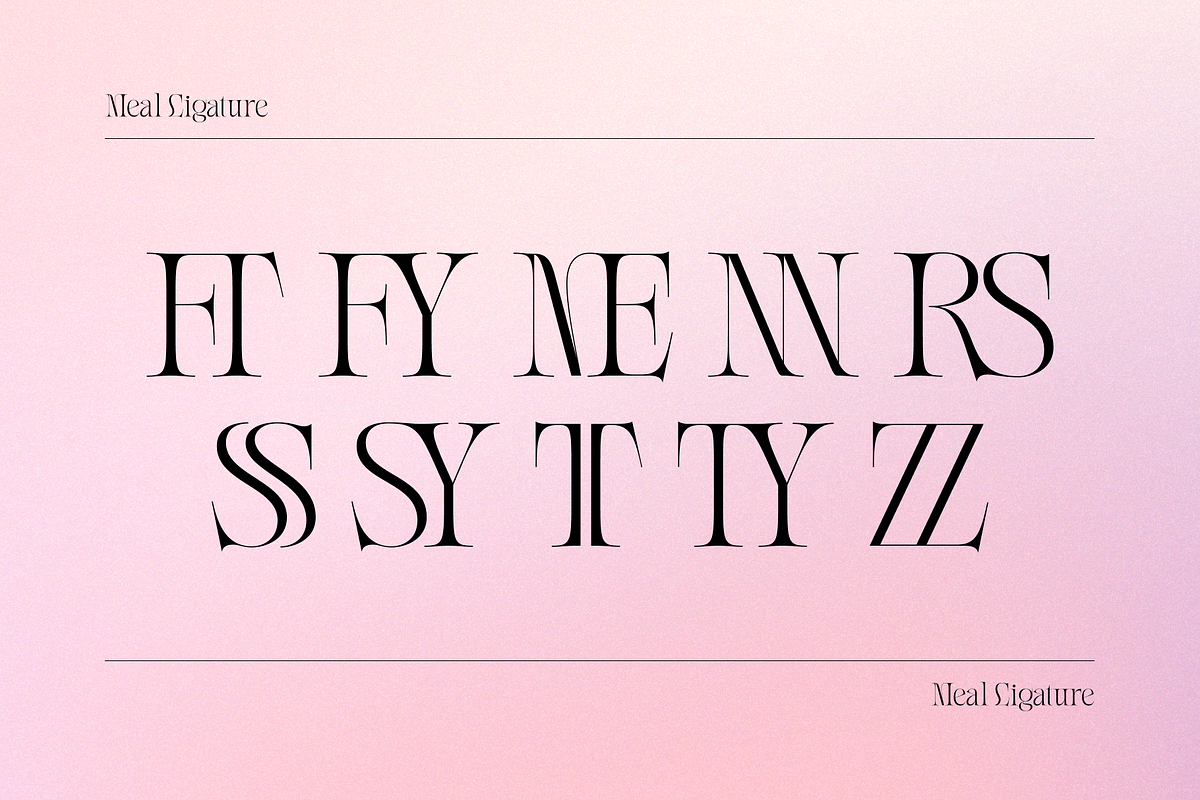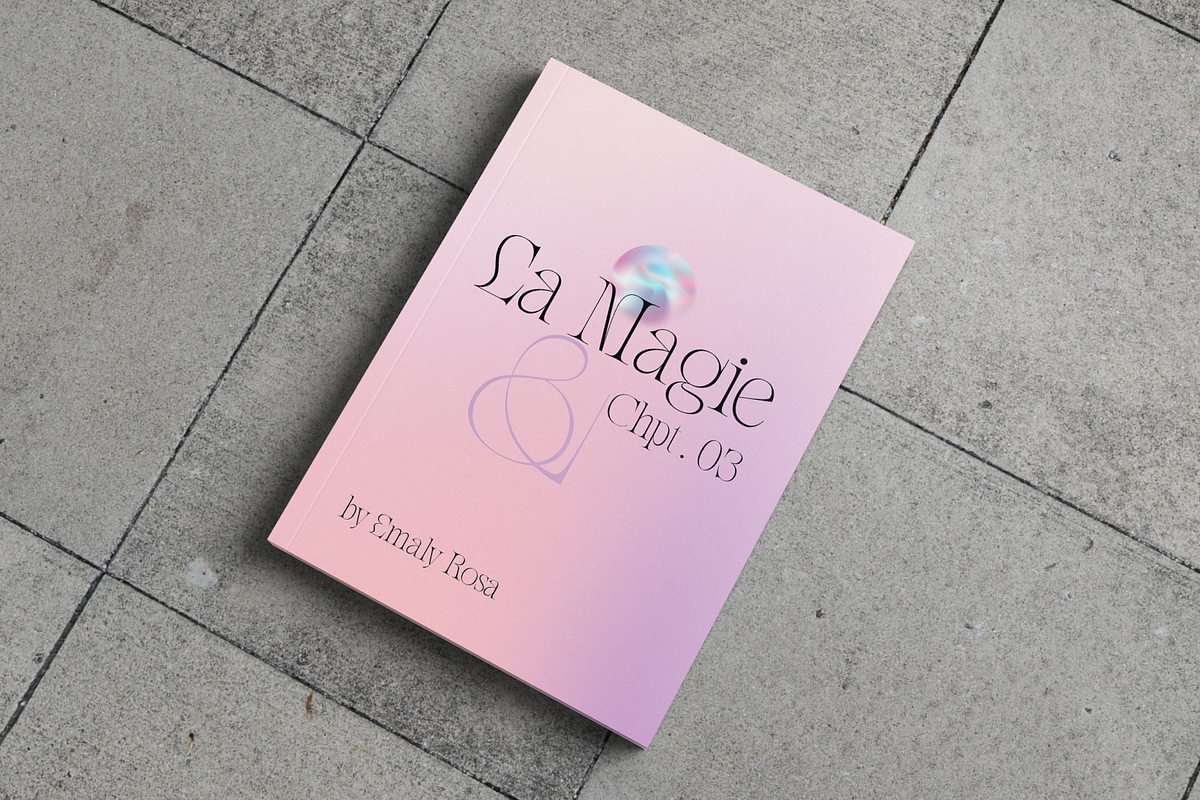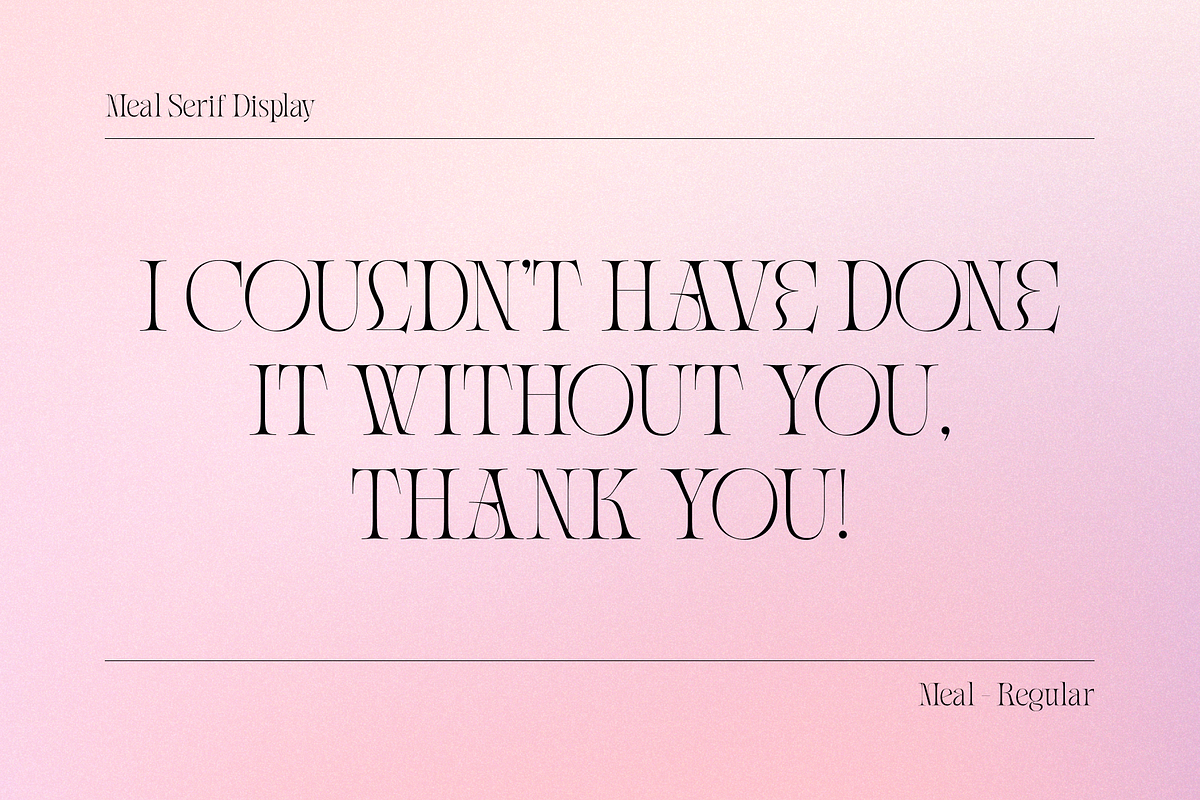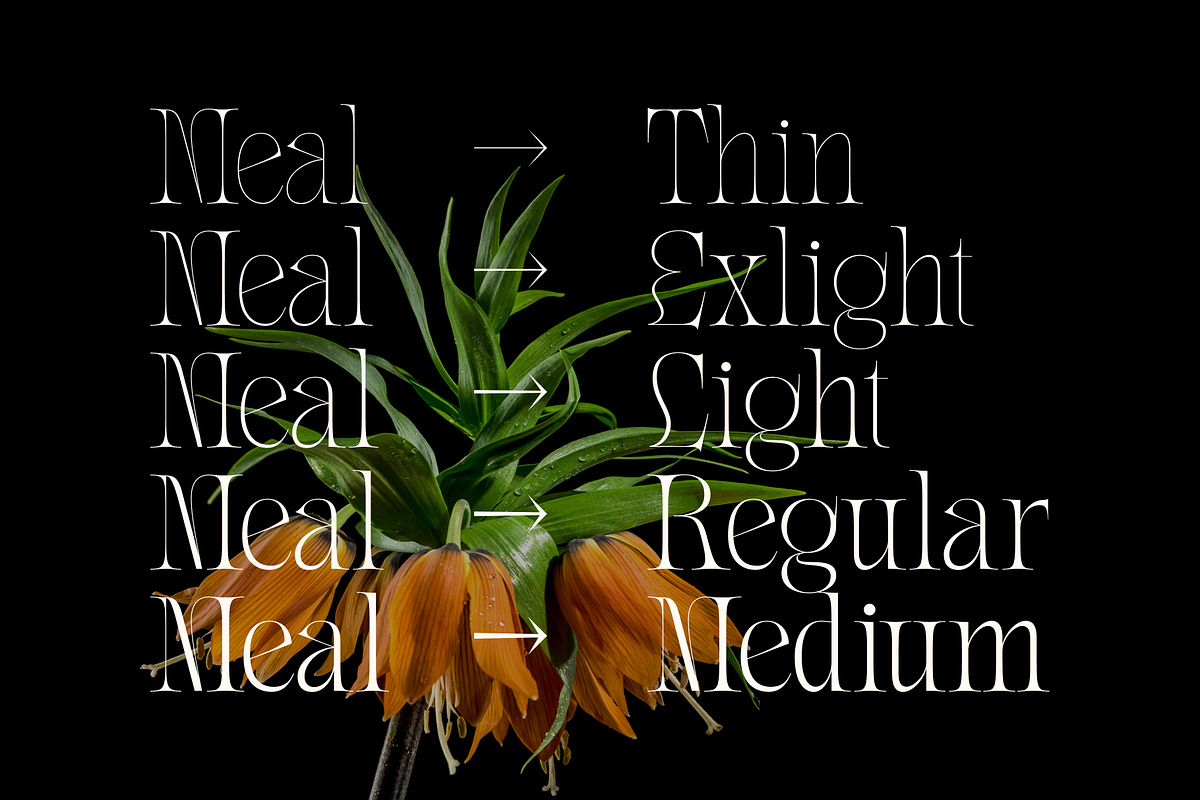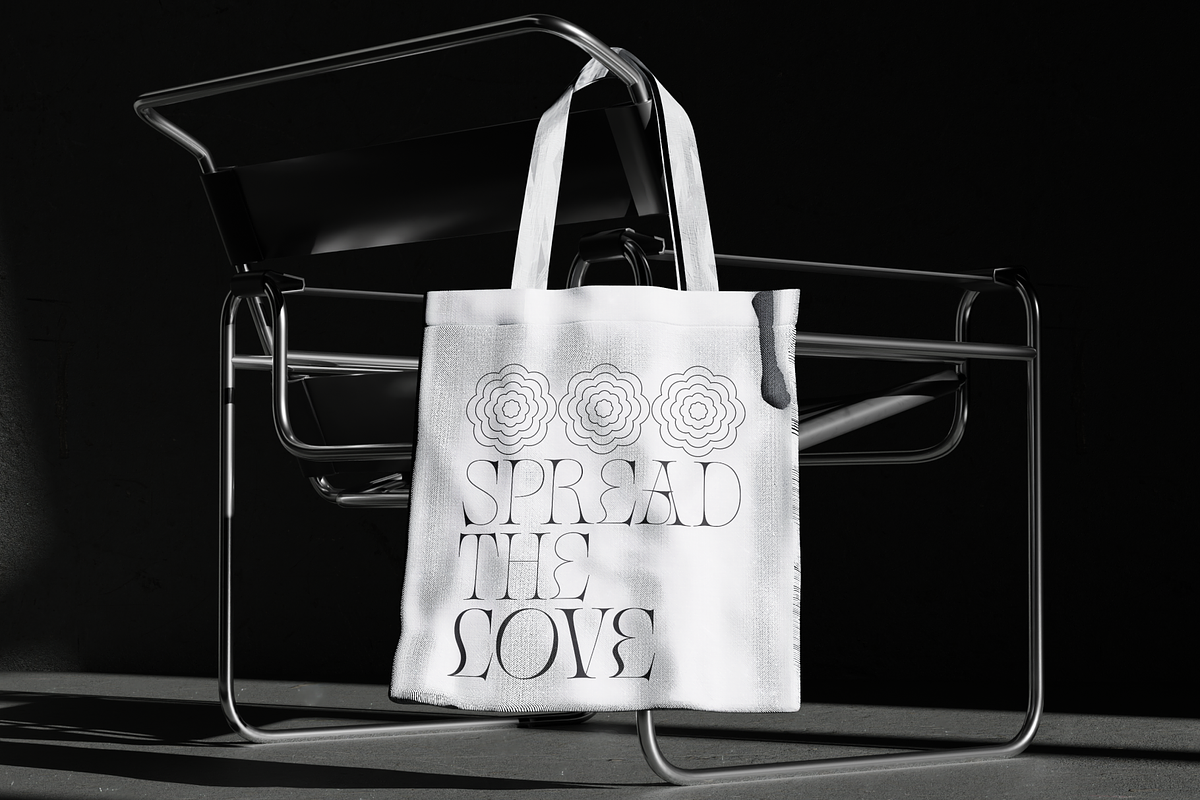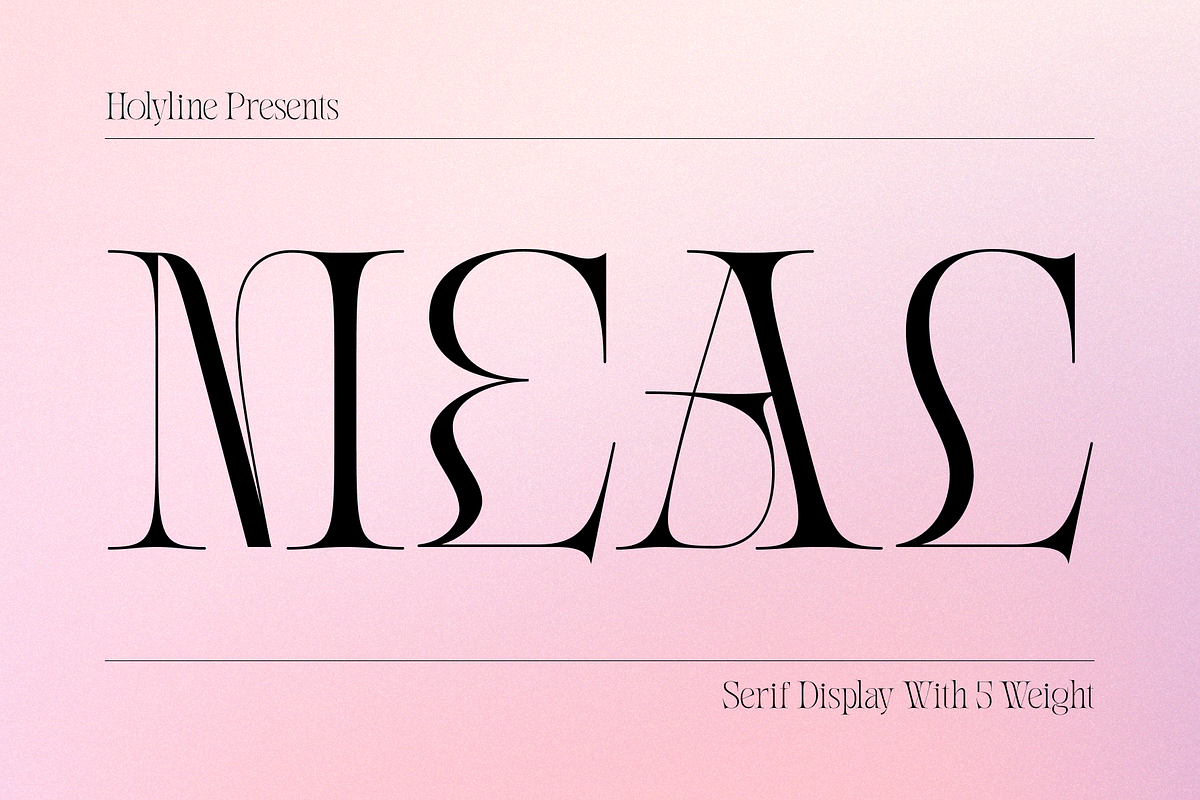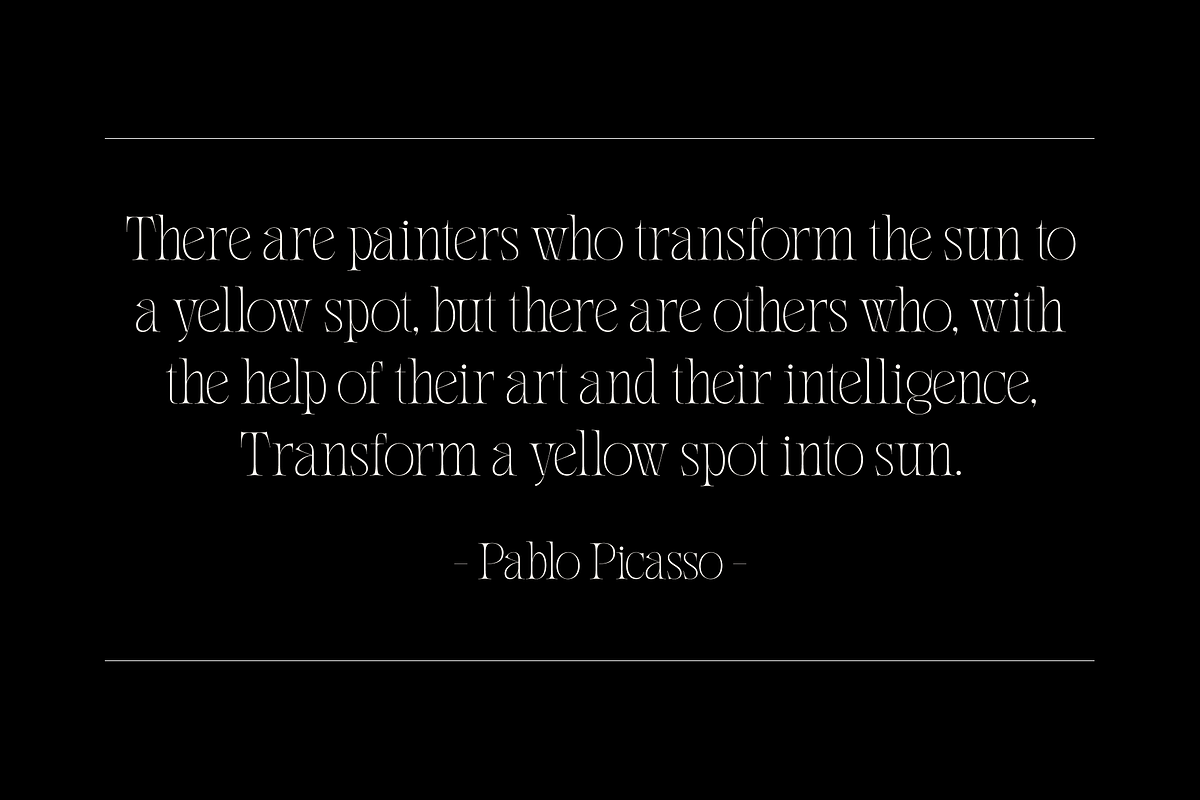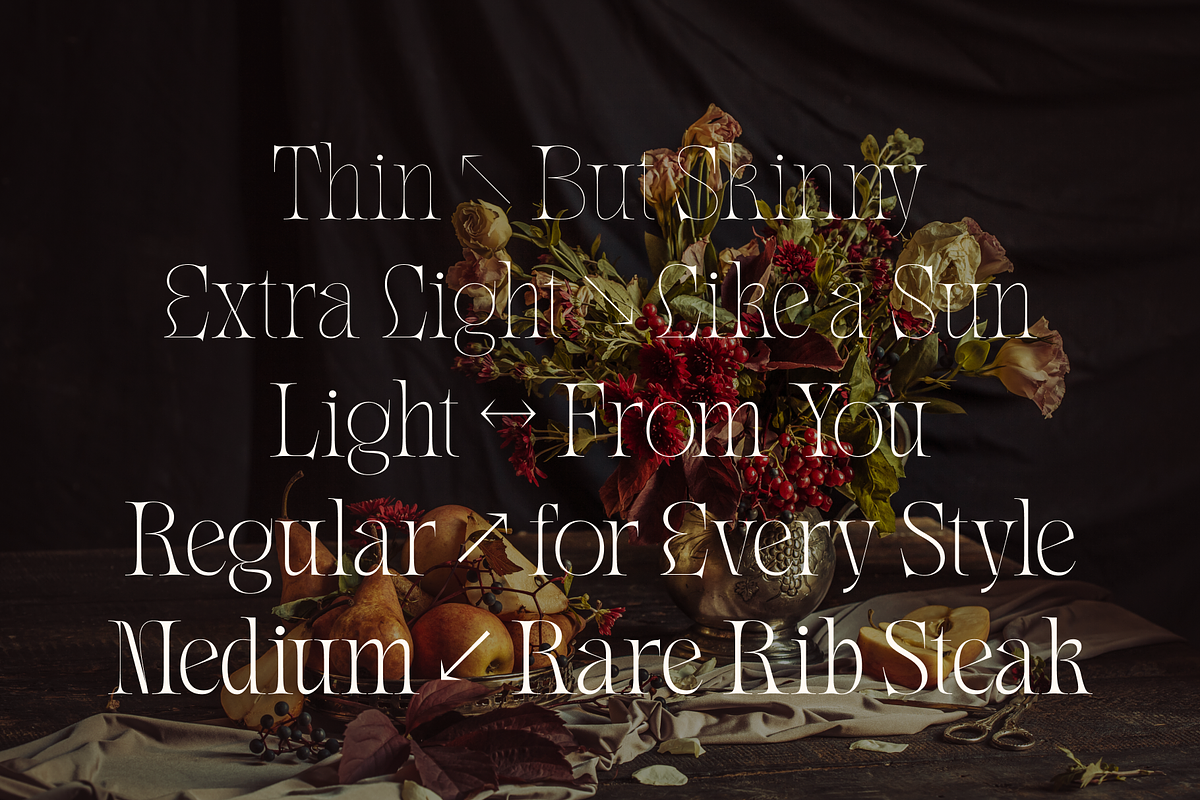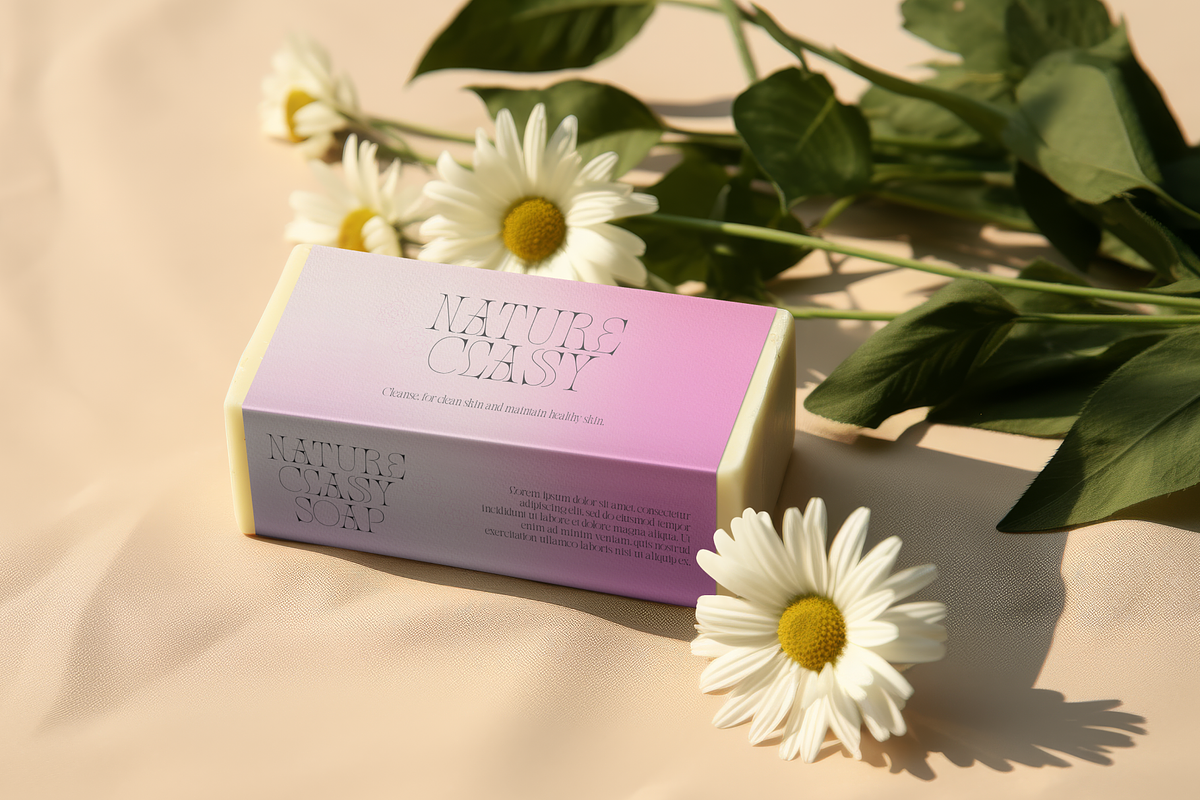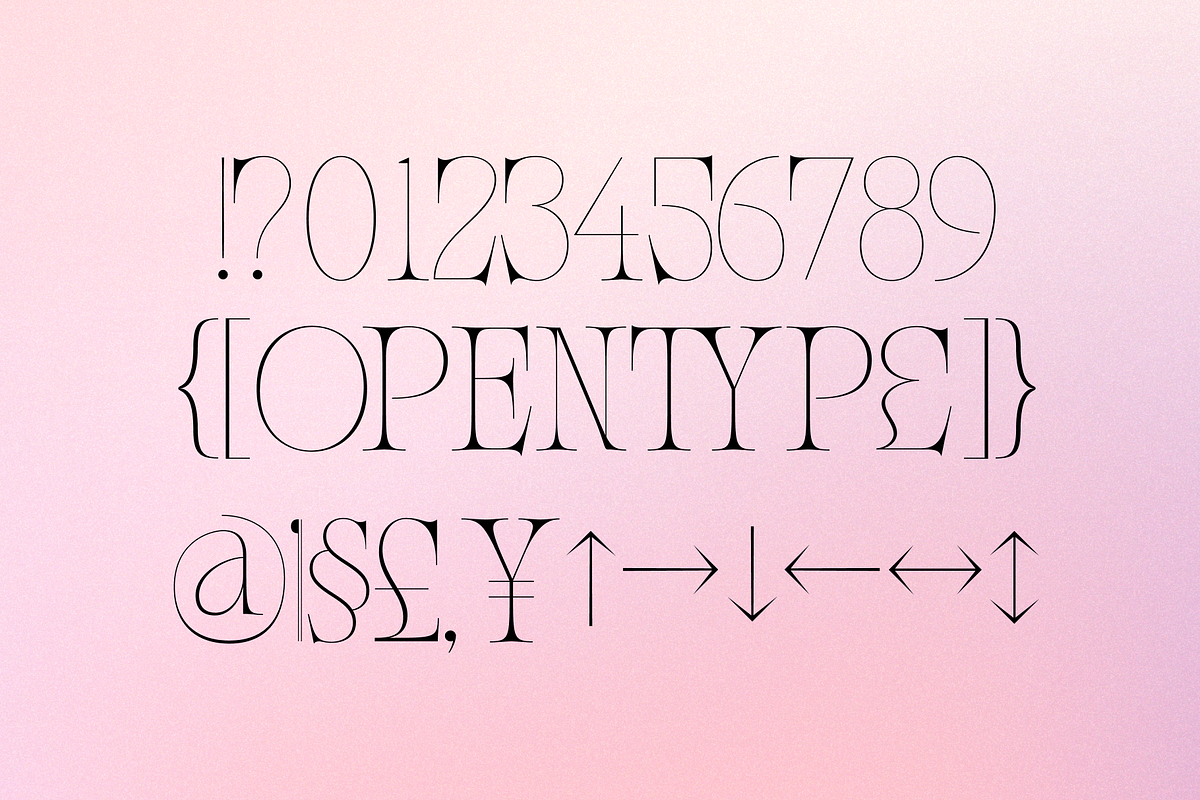
Meal - Serif Display Family
Meal is an elegant serif display font, inspired by the timeless sophistication of fashion. With bold, striking serifs and a refined structure, this font captures the essence of haute couture, bringing a touch of luxury to any design.Available in 5 weights from thin to medium, Meal offers flexibility across a range of visual styles—from delicate, minimal accents to confident, medium-weight statements. Each weight is meticulously crafted for maximum readability and impact, making it perfect for magazine headlines, branding, and any project that demands both style and substance. With its high-fashion influence and commanding serifs, Meal is a perfect choice for designers who want to make an impression with grace and power.